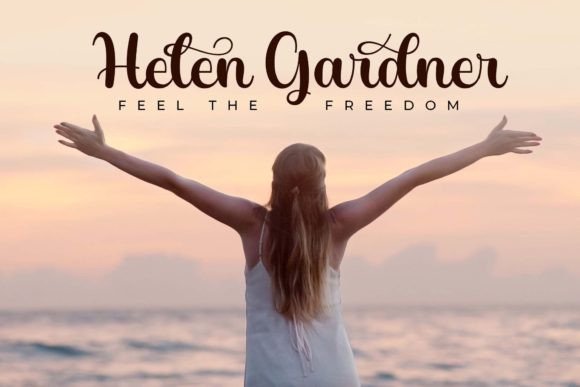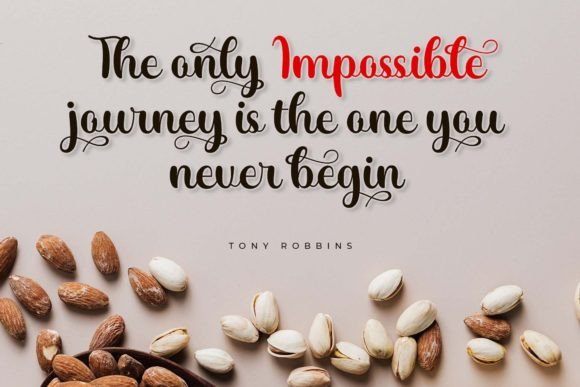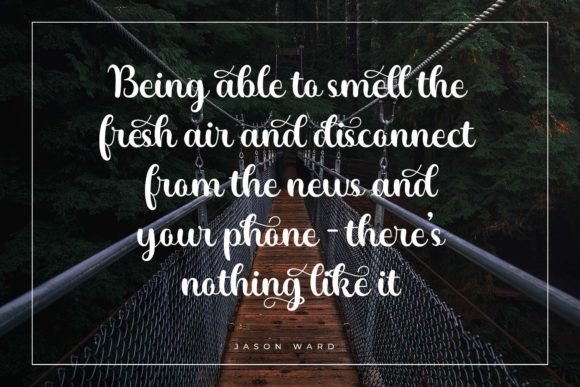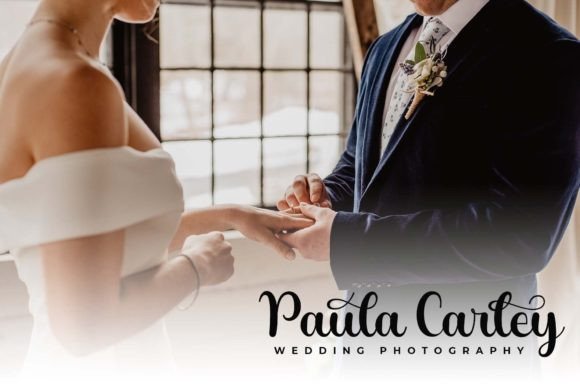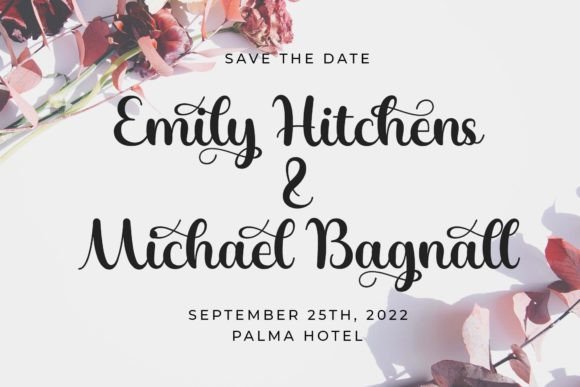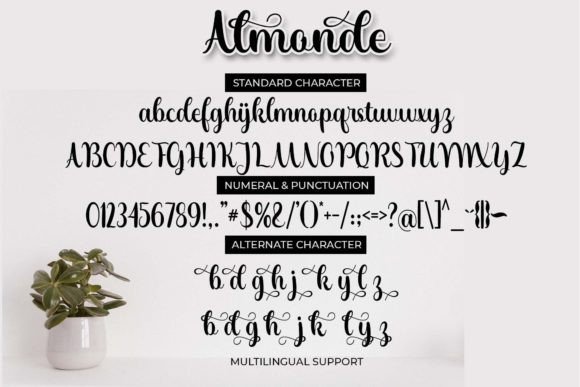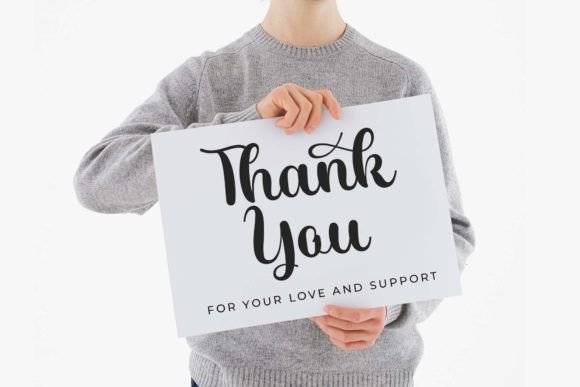
Almonde Font
About Almonde Font
Almonde is a captivating calligraphy typeface, exuding a romantic and sweet essence as its characters gracefully dance along the baseline. With a perfect blend of casual charm and elegant sophistication, this font is a versatile choice that adds a touch of romance to your design artwork.
The casual yet refined nature of Almonde makes it well-suited for a variety of creative projects. Whether you’re working on wedding invitations, love notes, or any design that seeks to evoke a romantic atmosphere, Almonde brings a unique and enchanting quality to the forefront.
One standout feature of Almonde is its PUA encoding, providing convenient access to a plethora of glyphs and swashes. This encoding system enhances the font’s usability, allowing designers to effortlessly incorporate additional flourishes and stylistic elements into their creations. This versatility ensures that Almonde can be customized to suit the specific aesthetic needs of your project, adding an extra layer of creativity and personalization.
In essence, Almonde is more than just a font; it’s a tool for infusing your designs with a romantic and sweet allure. Its calligraphic beauty, coupled with PUA encoding, makes it a valuable asset for those looking to create visually stunning and emotionally resonant design pieces. Embrace the romantic charm of Almonde to elevate your artistic endeavors.